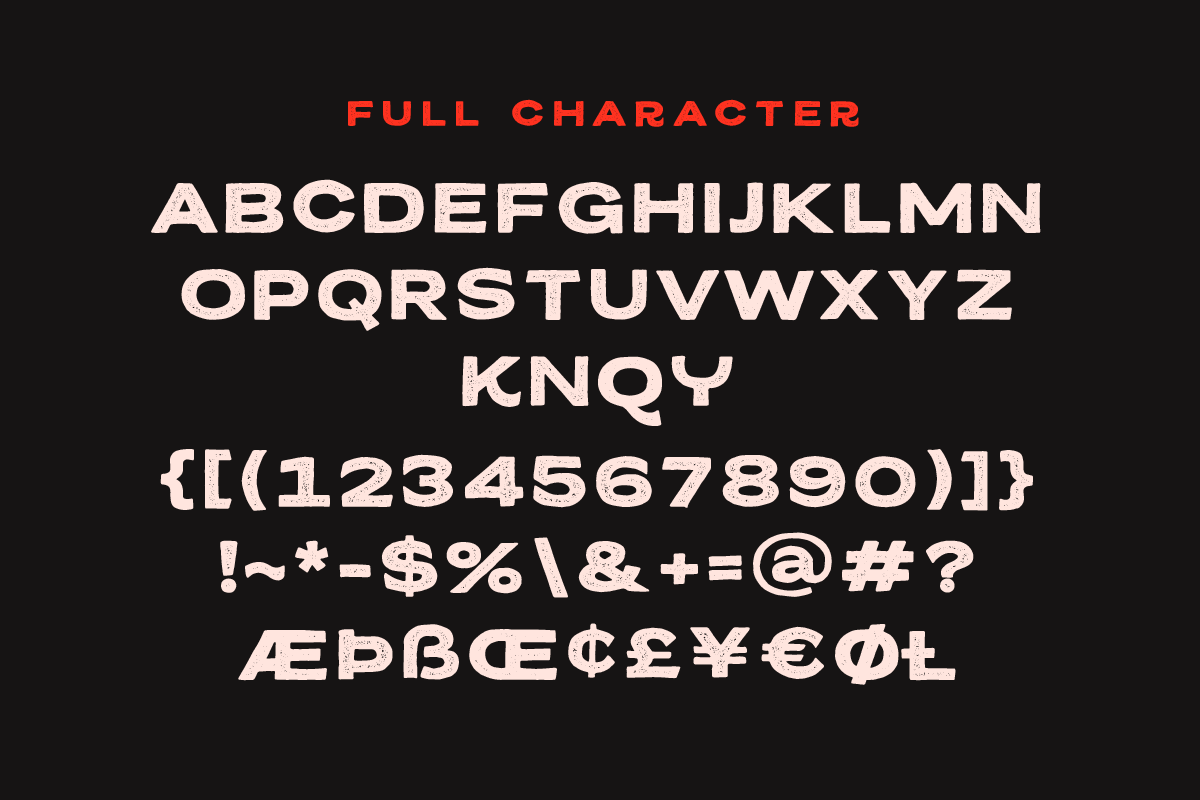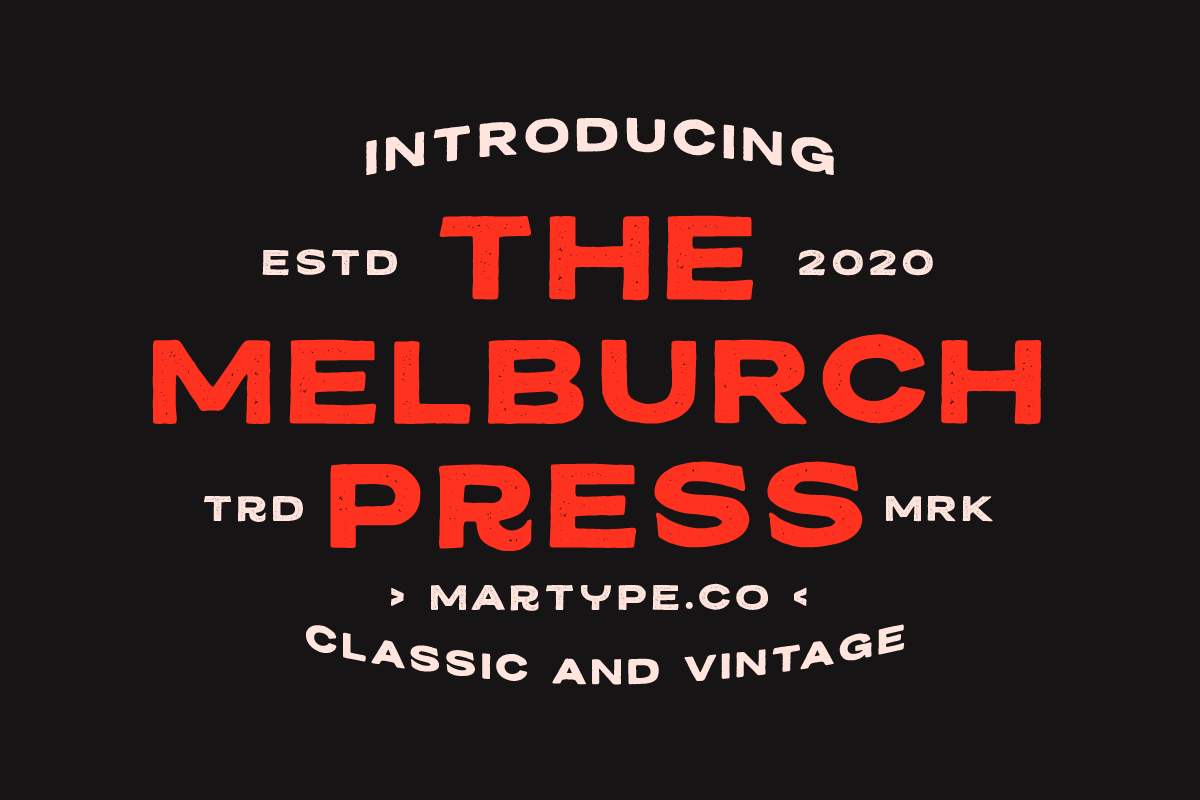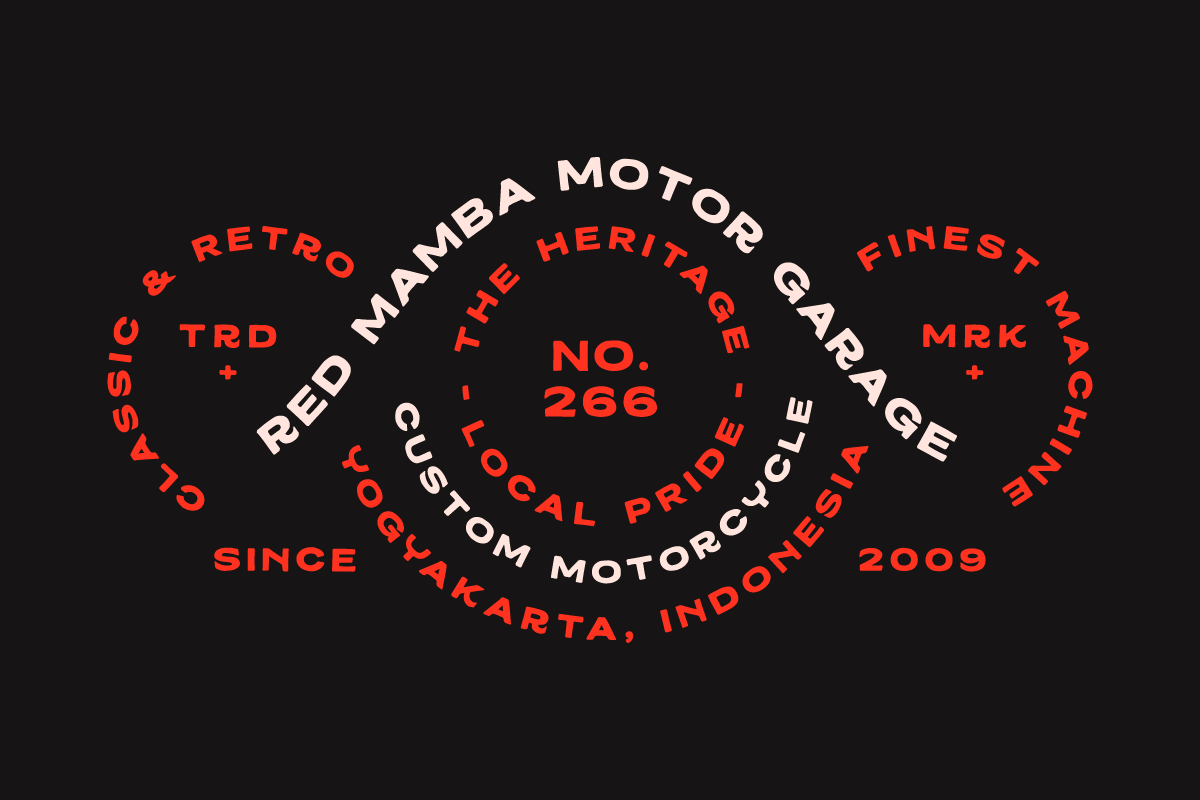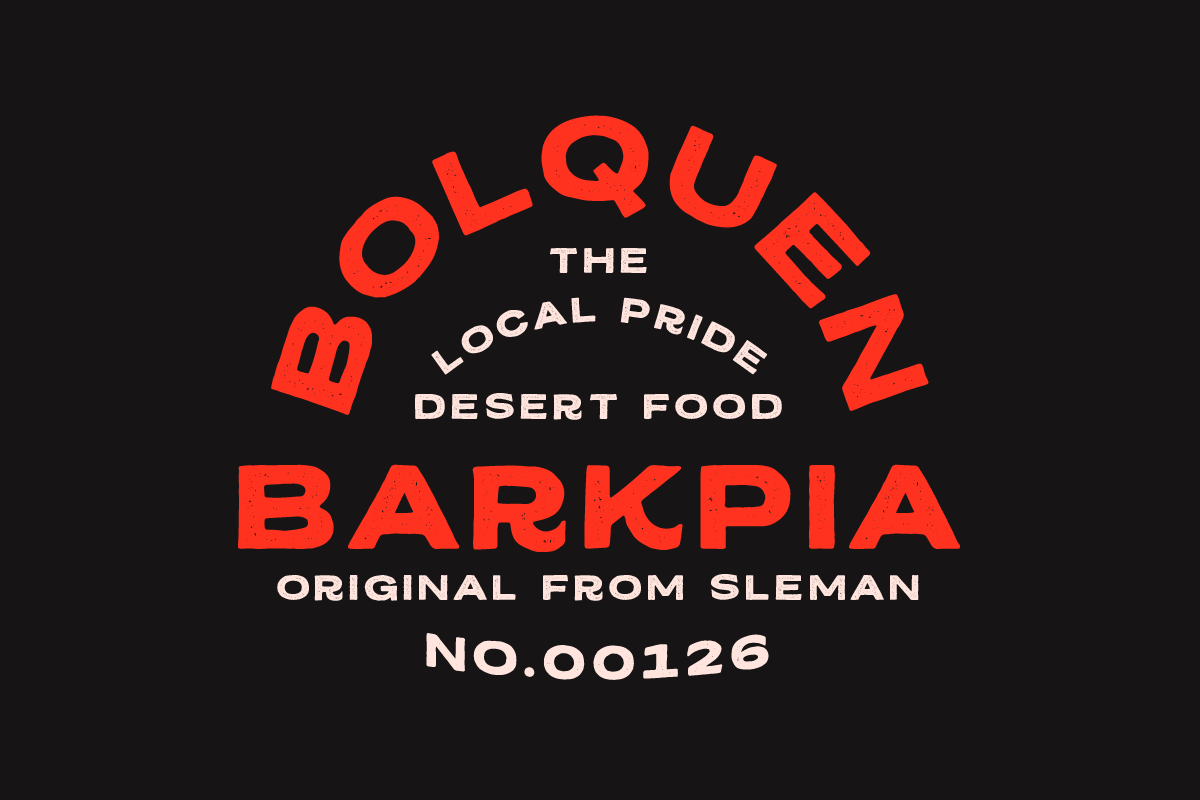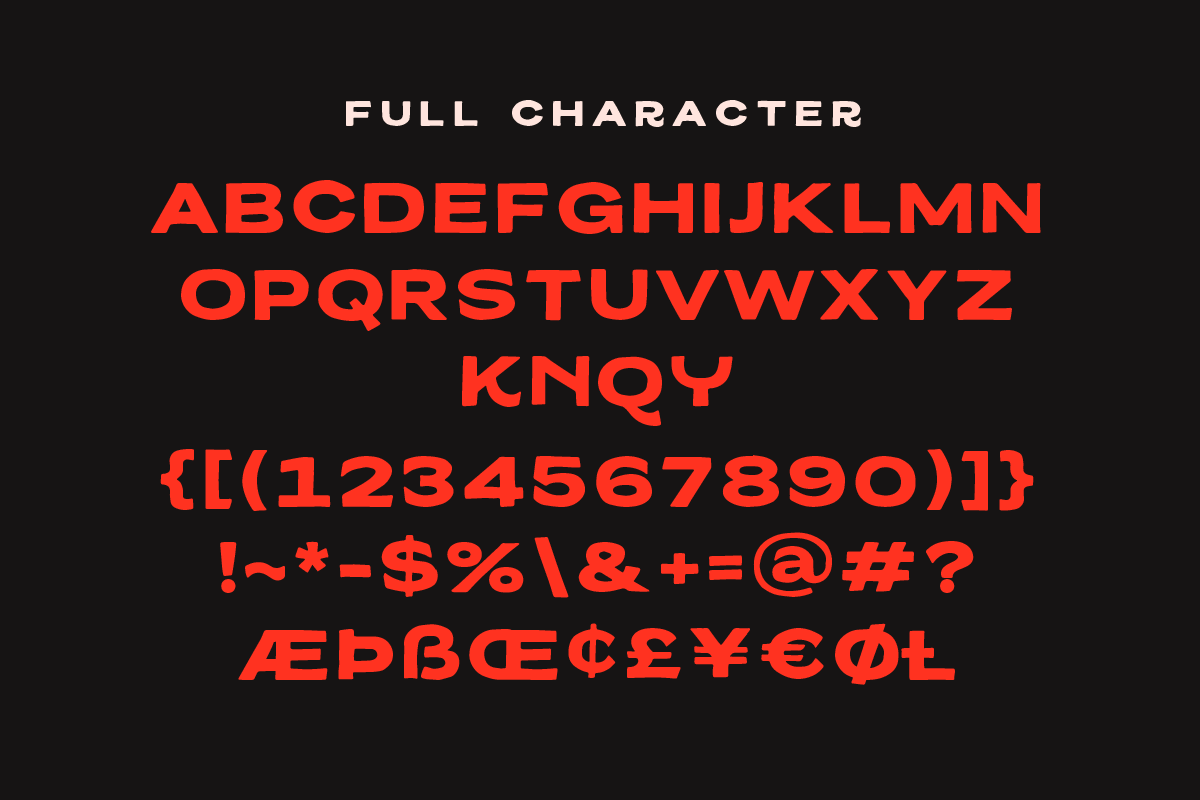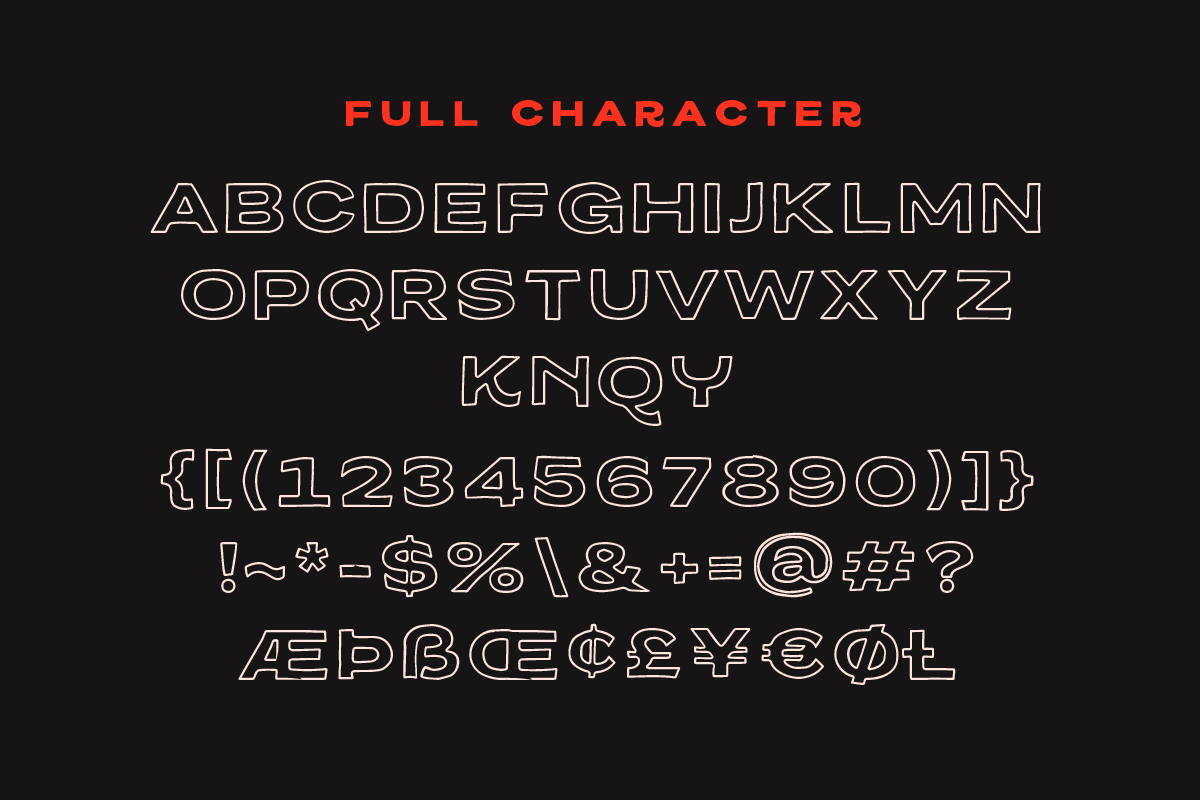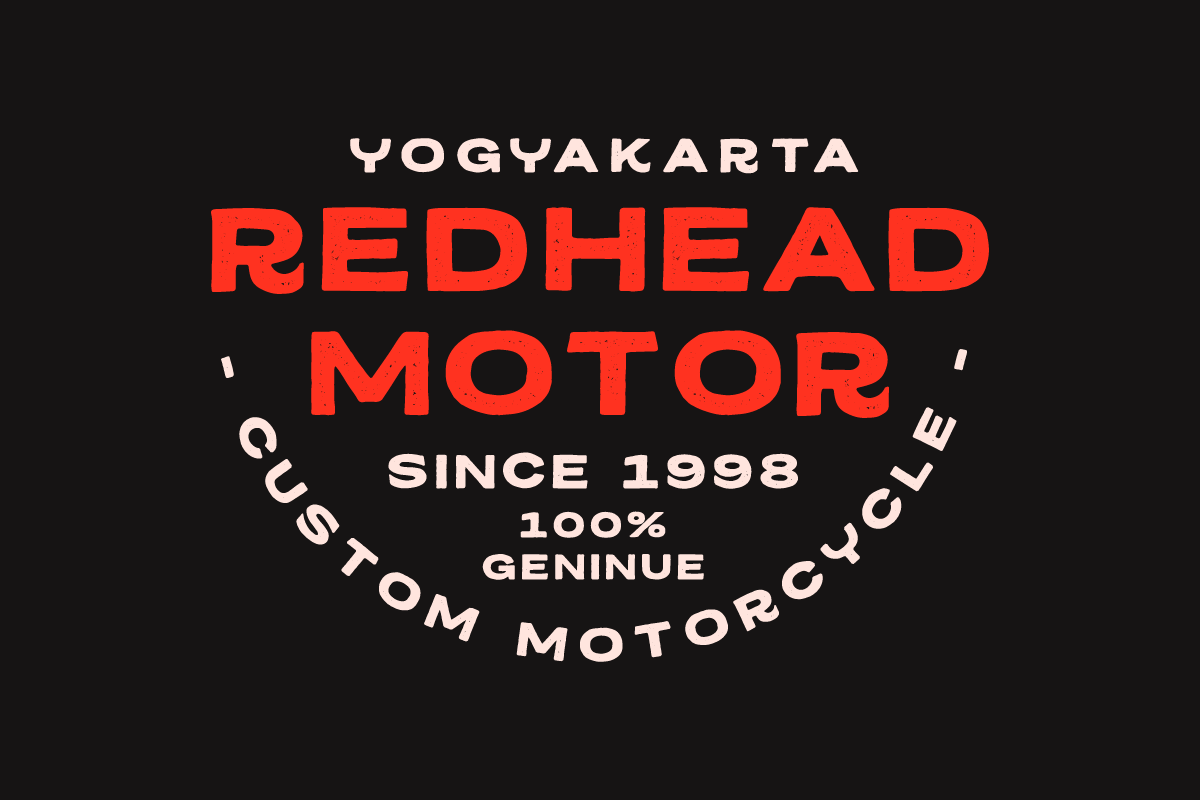
Melburch Township Typeface
Melburch Typeface is a sans serif font designed with carefully handcrafted. Also suitable for branding, T-shirt, Wedding Invitation, Vintage Design, Logotype, and any project. With two style make you easier to design everythings, and a sans bonus to make better design.
Melburch Reguler + Slanted
Melburch Outline + Slanted
Melburch Stamp + Slanted
Multilingual Support support many different languages 20+ .
Special Character Also added some special character you can check in the picture.